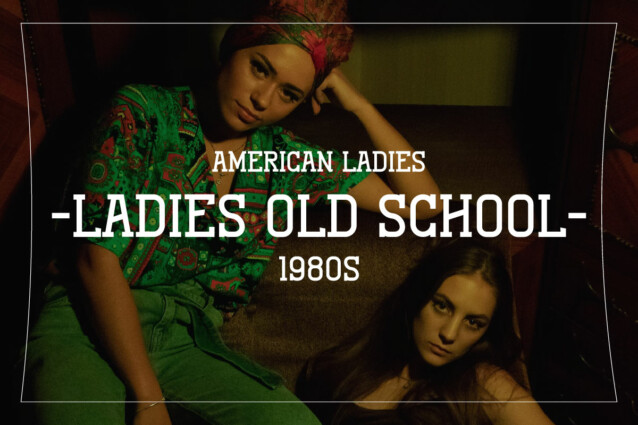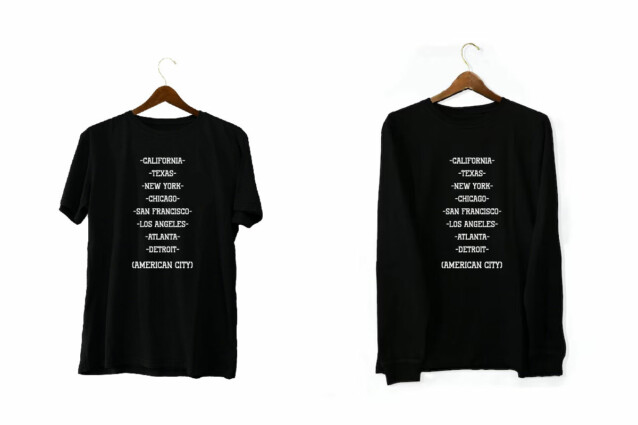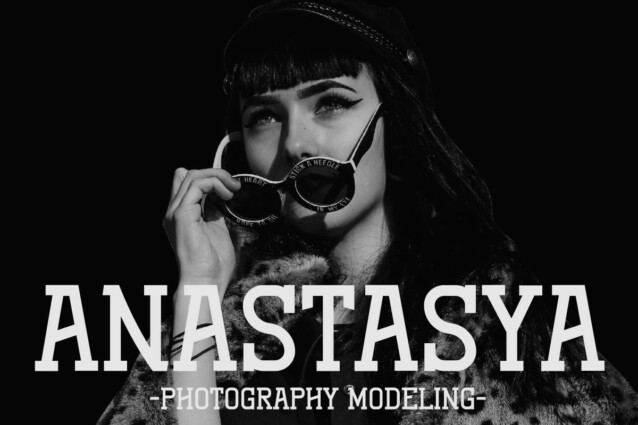
Vintage Oldest Font
Vintage Oldest Font is a modern and sleek slab serif font that epitomizes sophistication and versatility. Its clean, well-defined lines and sturdy serifs give it a timeless yet contemporary appeal.